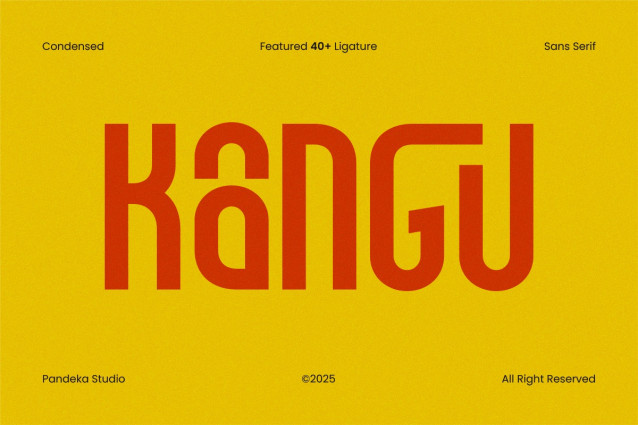
Kangu Font
Kangu Font is a bold, futuristic sans-serif font crafted for innovation-driven designs. With its sharp angles and dynamic style, Kangu perfectly fits tech branding, esports, automotive, and modern advertising. The font features uppercase, lowercase, numbers, punctuation, and multilingual support, making it highly versatile for diverse projects aiming to deliver a cutting-edge impact.